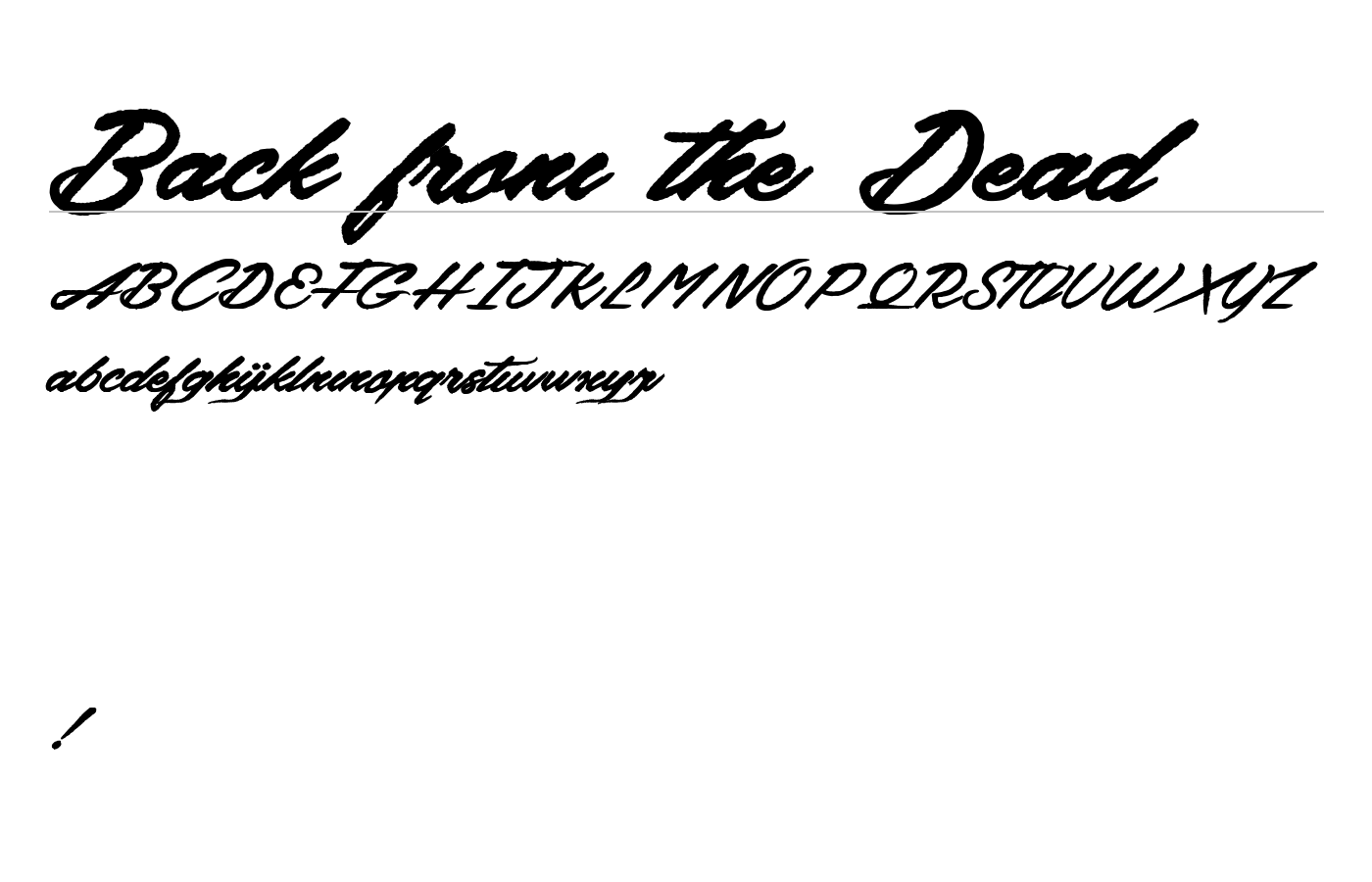
Back from the Dead is a bold, energetic script font with a handwritten feel, featuring dynamic thick and thin strokes and a slightly condensed width. Its lively, brush-like texture and fluid letterforms make it perfect for designs seeking a dramatic, vintage-inspired personality with a touch of rebellious flair. This font works well in logos, posters, and headlines where a strong, expressive presence is needed to capture attention.
Back from the Dead Font
About Back from the Dead Font